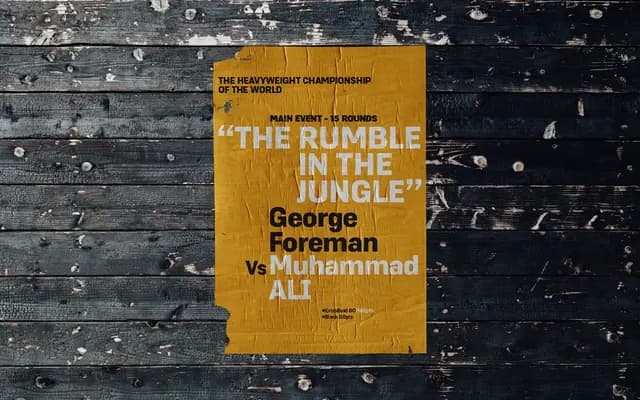
A compact geometric sans with seven weights and matching italics, built for both large-format display and body text across modern layouts.
Drawn with simple construction and a technical character, Duran sits in the tradition of industrial geometric sans designs. Its laterally compact proportions make it space-efficient across editorial and branding layouts without sacrificing legibility at text sizes. The full family of 14 fonts includes over 670 characters per style and a thorough OpenType feature set covering eight numeral variants, stylistic alternates, arrows, game symbols and Western, Southern and Central European language support.
Described explicitly as a geometric sans with industrial quality, inspired by technical style letterforms and simple construction, placing it firmly in the geometric sans subcategory.